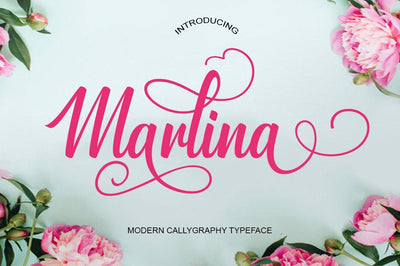
Marlina
Marlina Script
Marlina Script New fresh & modern style with handmade calligraphy, decorative characters and dancing lineage! So wonderful are invitations like greeting cards, branding material, business cards, quotes, posters, and more !!